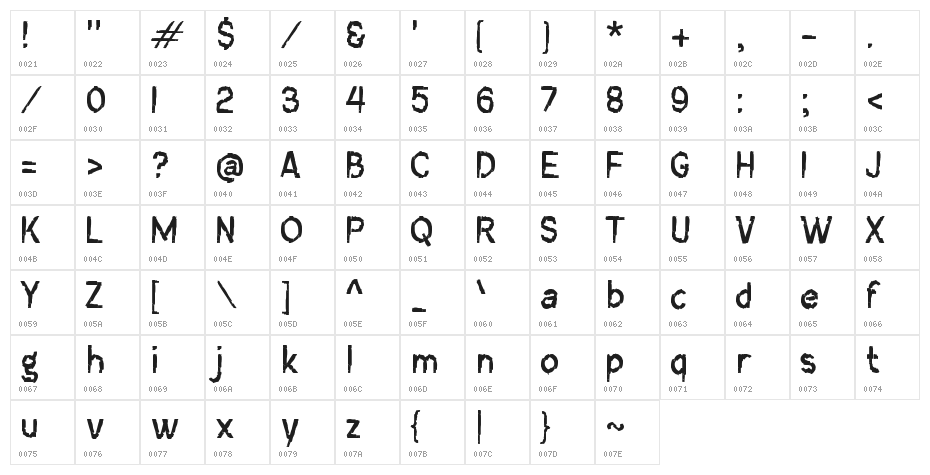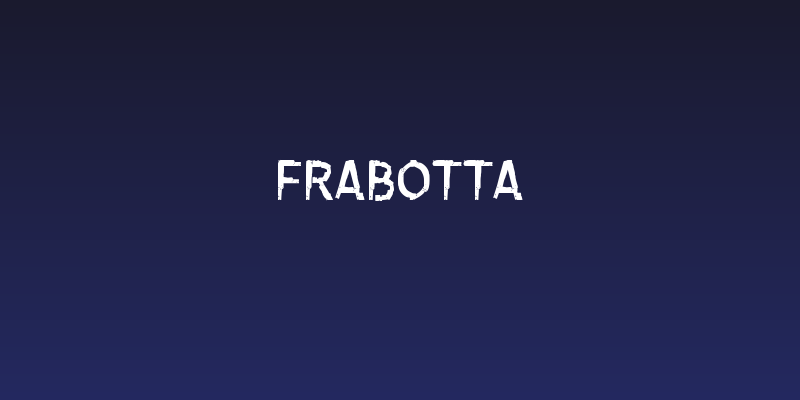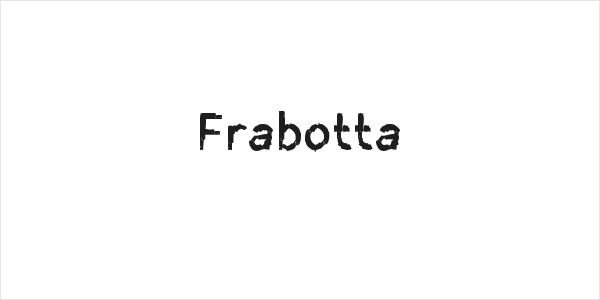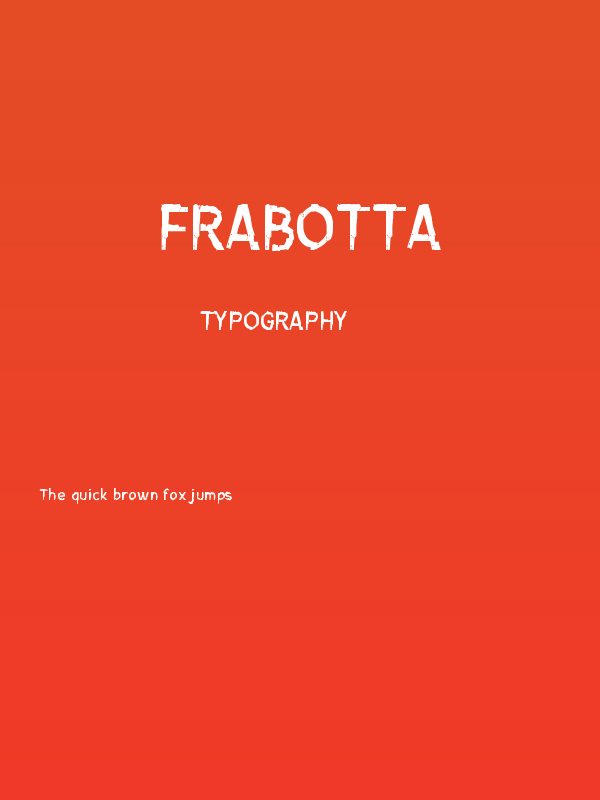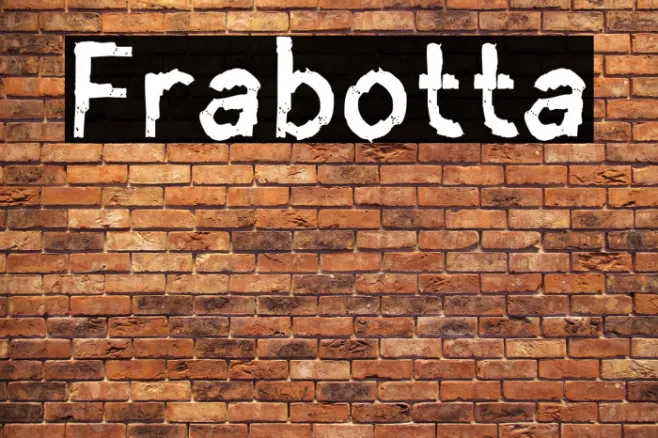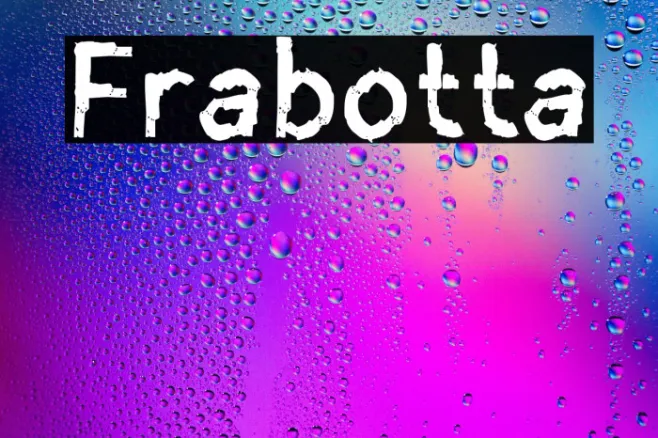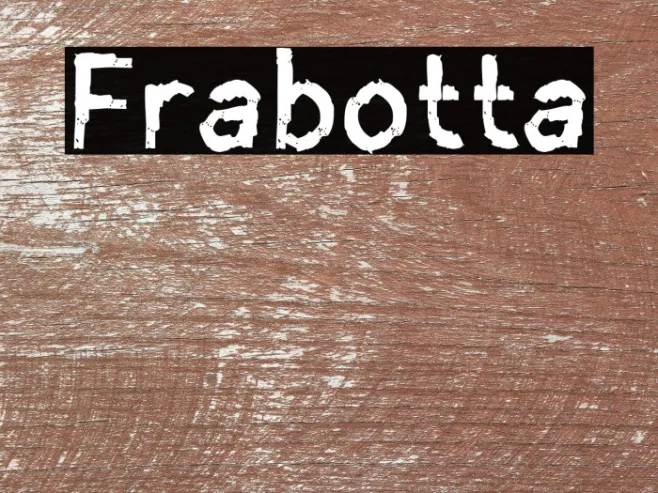
Frabotta Font
Frabotta Description
This font features a rugged, distressed appearance, giving it a unique and edgy look. The characters are bold and slightly irregular, with a hand-crafted feel that suggests a vintage or grunge aesthetic. The uppercase and lowercase letters maintain a consistent style, while the numbers and special characters complement the overall design. The texture within each character adds depth and character, making it stand out in any design project.
| Overall Style | Vintage, Grunge |
| Proposed Projects | Ideal for album covers, posters, branding for edgy or alternative products, and any project requiring a bold, distinctive typeface. |